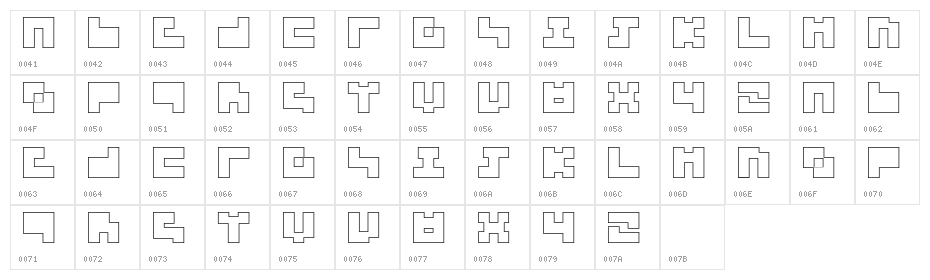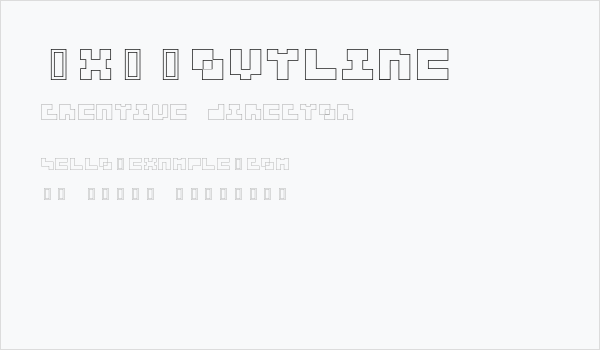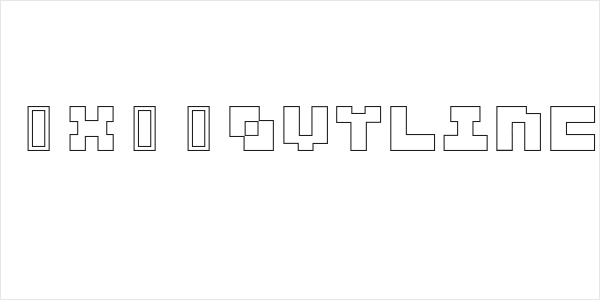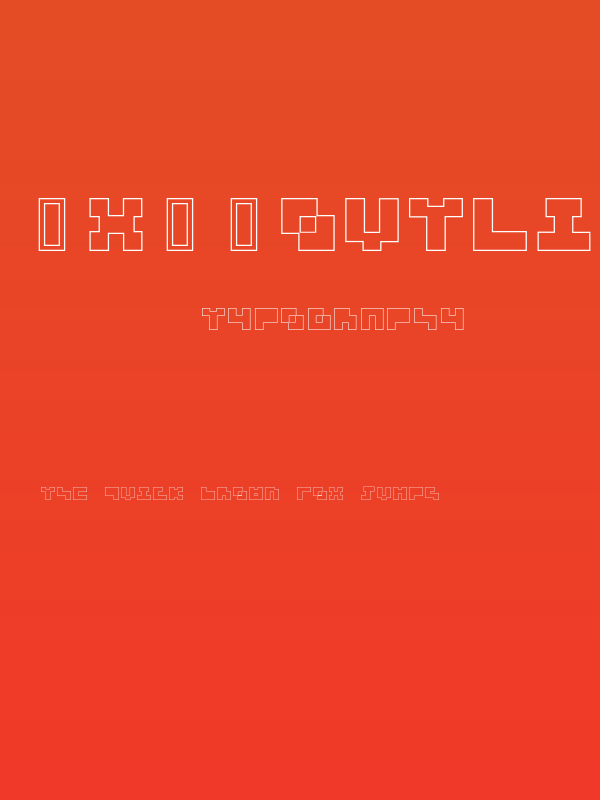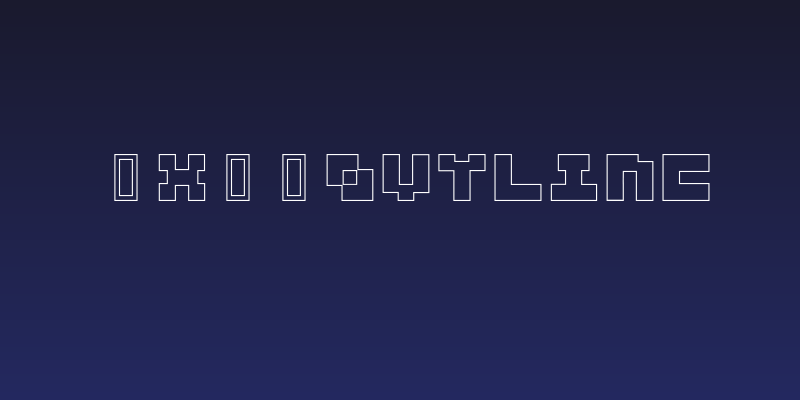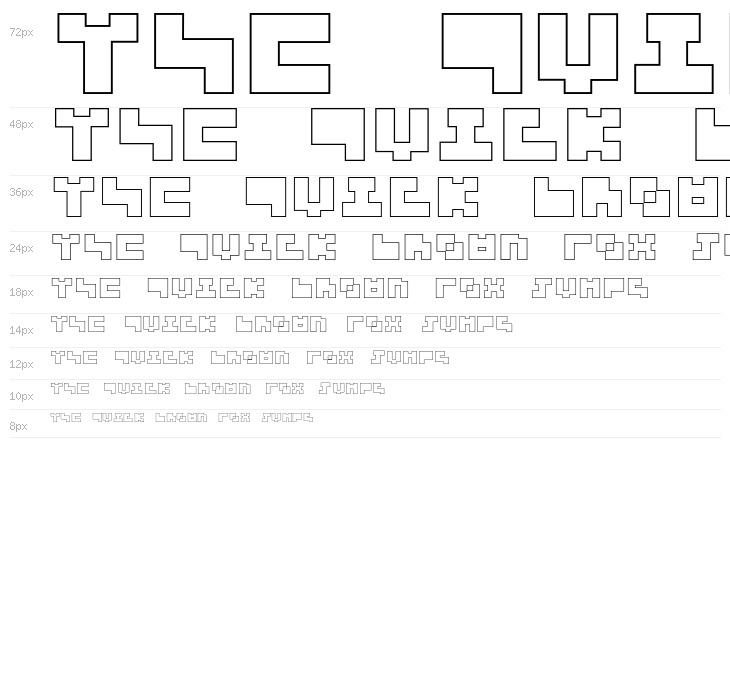
3x3-outline Font
3x3-outline Description
This font features a unique, geometric outline style with a blocky, pixelated appearance. Each character is constructed from a grid-like pattern, giving it a distinct, digital aesthetic reminiscent of early computer graphics or retro video games. The uniformity in line thickness across all characters contributes to a cohesive look, while the open, outlined design adds a modern twist. The uppercase and lowercase letters maintain a consistent height, enhancing readability despite the unconventional design. Numbers and special characters follow the same stylistic approach, ensuring a harmonious overall appearance.
| Overall Style | Modern, Retro |
| Use Case | Headlines, Logos, Digital Art |
| Proposed Projects | Ideal for video game design, tech-themed posters, digital art projects, or any creative work seeking a retro digital vibe. |